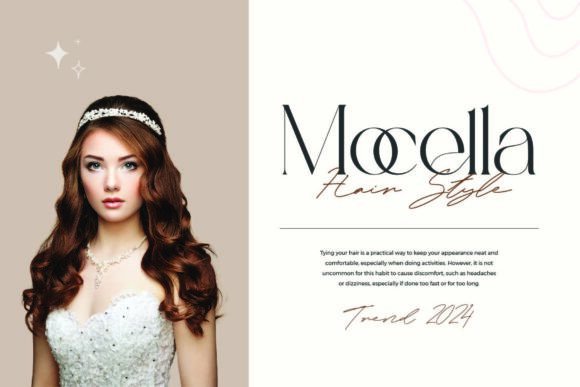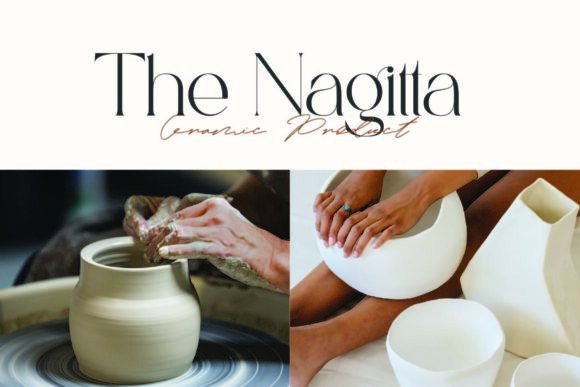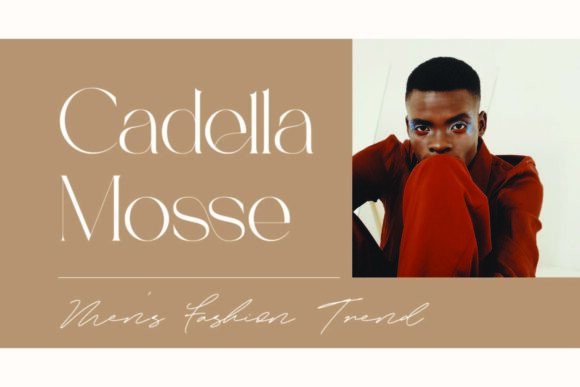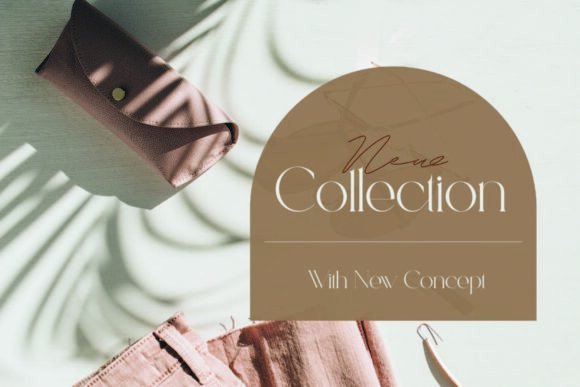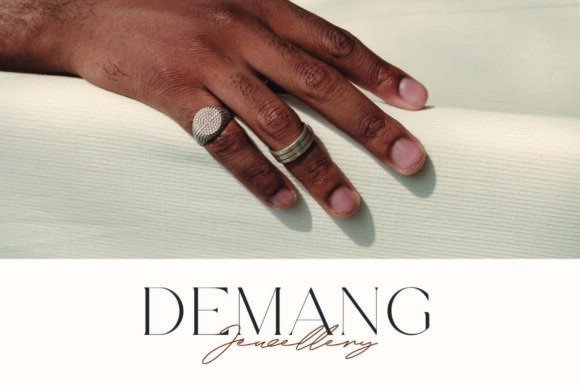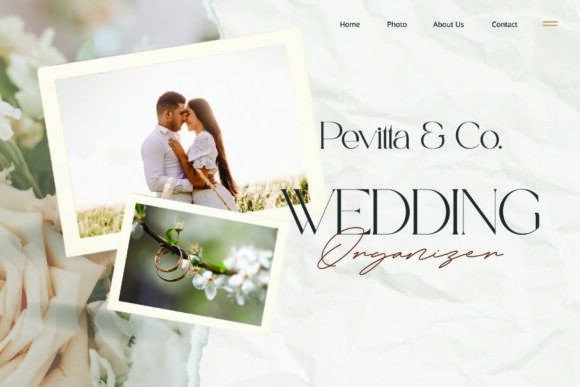
Bellagio Font: Elevate Your Designs with Elegance and Versatility
Are you searching for a font that exudes elegance, sophistication, and versatility? Look no further than the stunning Bellagio Font. This beautiful serif font is perfect for designers and crafters who want to add a touch of luxury to their creations. In this article, we’ll dive into the world of Bellagio Font, exploring its features, uses, and benefits.
What is Bellagio Font?
Bellagio is an elegant and bold serif font that is sure to capture your heart. Its incredibly versatile style makes it perfect for a wide range of design projects, from wedding invitations and stationary art to social media posts and more. Whether you’re a professional designer or a crafty DIY enthusiast, Bellagio Font is an excellent addition to your font collection.
Key Features of Bellagio Font
- Elegant and Bold: Bellagio Font boasts a classic serif design with bold lines and elegant curves, making it perfect for creating sophisticated and eye-catching designs.
- Versatile: This font is incredibly versatile, allowing you to use it for a wide range of projects, from formal wedding invitations to social media posts and more.
- High-Quality: Bellagio Font is a high-quality font that is designed to deliver exceptional results, even at large sizes.
Uses for Bellagio Font
Bellagio Font is perfect for a variety of design projects, including:
- Wedding Invitations: Create stunning wedding invitations that set the tone for a luxurious and elegant celebration.
- Stationary Art: Add a touch of sophistication to your stationary art, including greeting cards, thank-you cards, and more.
- Social Media Posts: Elevate your social media posts with Bellagio Font’s elegant and bold style, making them stand out in a crowded feed.
- Branding and Packaging: Use Bellagio Font to create luxurious branding and packaging that reflects your brand’s high-end personality.
Benefits of Using Bellagio Font
By incorporating Bellagio Font into your design projects, you’ll enjoy a range of benefits, including:
- Unique and Memorable Designs: Bellagio Font’s elegant and bold style will help you create unique and memorable designs that stand out from the crowd.
- Professional-Looking Results: This high-quality font will give your designs a professional-looking finish, perfect for designers and crafters who want to deliver exceptional results.
- Time-Saving: With Bellagio Font, you can create stunning designs in no time, thanks to its versatility and ease of use.
Tips for Using Bellagio Font
To get the most out of Bellagio Font, follow these expert tips:
- Experiment with Sizes: Bellagio Font looks great at a range of sizes, so don’t be afraid to experiment and find the perfect size for your design.
- Pair with Other Fonts: Combine Bellagio Font with other fonts to create stunning contrast and add visual interest to your designs.
- Use for Headings and Titles: Bellagio Font is perfect for headings and titles, where its bold and elegant style can really shine.
| Font Name | Bellagio Font |
| Author | Aqeel_Art |
In conclusion, Bellagio Font is an exceptional addition to any designer’s or crafter’s font collection. Its elegant and bold serif style, versatility, and high-quality design make it perfect for a wide range of projects, from wedding invitations and stationary art to social media posts and more. By incorporating Bellagio Font into your designs, you’ll be able to create unique, memorable, and professional-looking results that will leave a lasting impression.